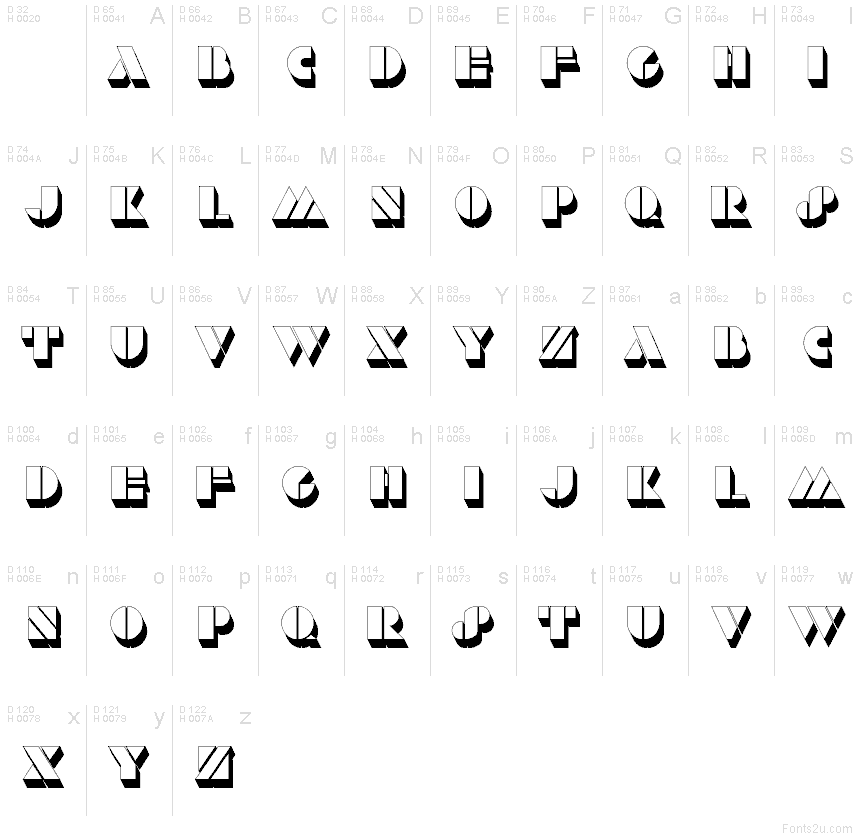
Stencil Extruded Hollow Regular
Stencil Extruded Hollow font by Vladimir Nikolic is a free stencil display typeface that turns every word into bold, industrial signage. Its tightly packed, blocky letters and sharp stencil cuts are pushed forward by a chunky extruded shadow, creating a built‑in 3D effect that feels like spray‑painted metal plates lifting off the page. The hollow interiors keep it from feeling too heavy, giving you strong impact without a solid brick of color.
Using Stencil Extruded Hollow, titles instantly read like crate markings, vehicle IDs, or rugged event branding with a cinematic twist. This free font works beautifully for posters, game logos, military or sci‑fi graphics, sports banners, album art, and bold YouTube or Twitch overlays. Pair it with a simple neutral sans at smaller sizes to handle body copy while Stencil Extruded Hollow stays big and loud in headlines.